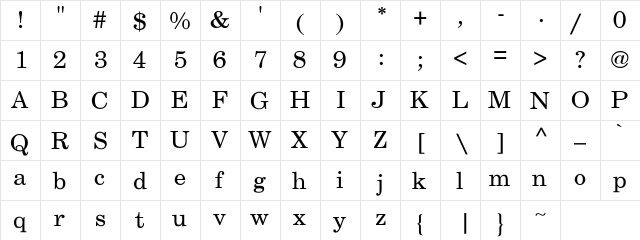
Roosevelt 3 Regular
Design Context for Roosevelt 3 Typeface
Roosevelt 3 is a composed and adaptable typeface that performs quietly and consistently across a wide range of design contexts.